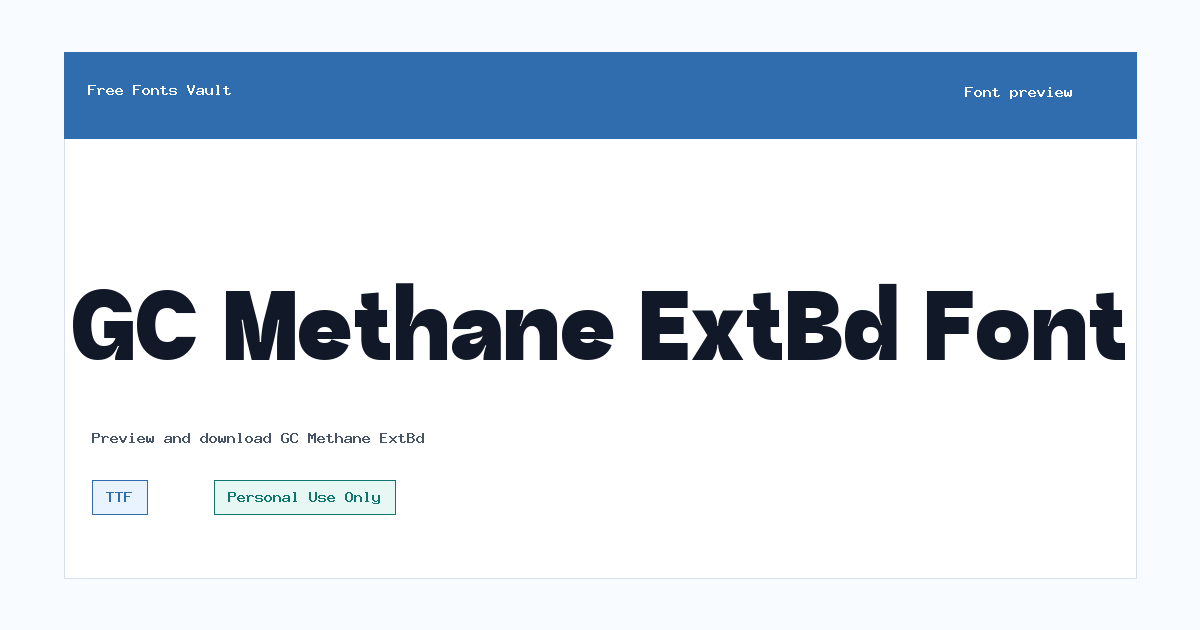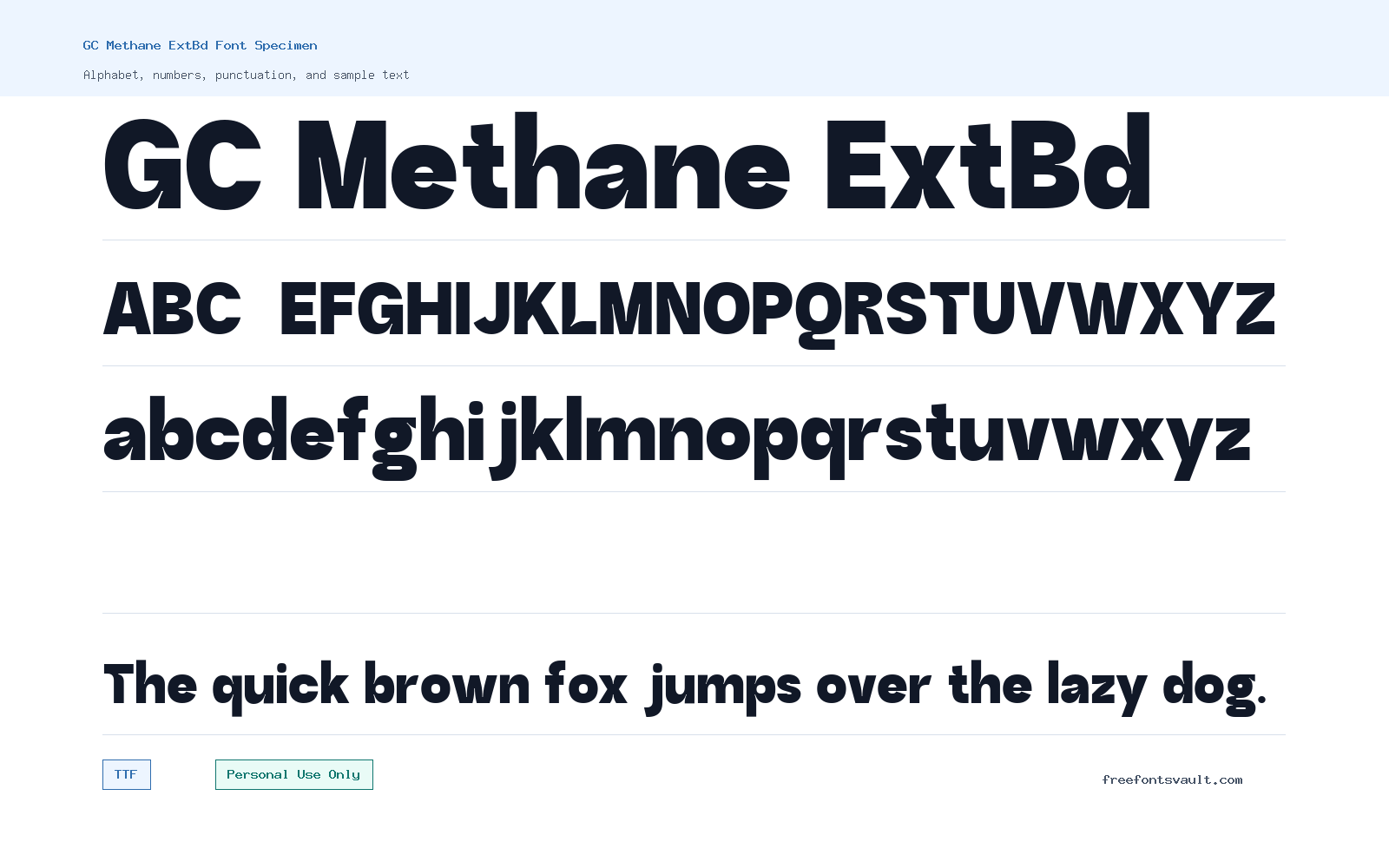
GC Methane ExtBd
- Designer Ken Priska Dewirani of Glyphonic
GC Methane ExtBd is a strong ExtraBold sans serif font from Glyphonic, designed for personal-use display work where a firm, modern headline style is needed.
About GC Methane ExtBd Font
GC Methane ExtBd has the weight and presence you would expect from an ExtraBold sans serif. Its heavier build makes it more suitable for short, direct text than for long paragraphs. Use it when the words need to feel solid on the page: poster titles, cover text, social graphics, bold web mockups, packaging concepts, and logo exploration. Because the available file is a TTF demo style, it is easy to install and test in most design apps before deciding whether the wider family or a commercial license is needed.
This font is best judged at display sizes. Try it in the preview with brand names, short headlines, event titles, and two- or three-word phrases. Check how the spacing feels in all caps, mixed case, and tight logo-style layouts. ExtraBold sans serif fonts can look confident in large text, but they can become dense if used for long copy or small interface labels. For cleaner layouts, pair GC Methane ExtBd with a lighter, simpler sans serif for body text, captions, or navigation. Let GC Methane ExtBd handle the attention-grabbing words, then use a quieter companion font to keep the rest readable.
- ExtraBold sans serif style with strong display impact
- Useful for short titles, logo drafts, posters, thumbnails, and web mockup headings
- Poster headlines and event graphics
- Logo concepts and wordmark drafts
- Web hero titles and landing-page mockups
- Social media graphics and bold thumbnail text
- Packaging studies, cover layouts, and personal design experiments
GC Methane ExtBd is credited to Ken Priska Dewirani of Glyphonic.
Use GC Methane ExtBd for short display text where weight and clarity matter. Test spacing carefully in all caps, avoid long paragraphs, and pair it with a lighter neutral sans serif for body copy so the layout stays readable.
What kind of font is GC Methane ExtBd?
GC Methane ExtBd is an ExtraBold sans serif font. It is better suited to display typography such as headlines, posters, logo drafts, and mockups than to long reading text.
What fonts pair well with GC Methane ExtBd?
Pair it with a lighter, plain sans serif for body text and supporting details. Since GC Methane ExtBd is heavy, a simpler companion font will help keep the design balanced and readable.
Is GC Methane ExtBd good for paragraphs?
It is not ideal for long paragraphs. ExtraBold display fonts usually work best in short lines, titles, labels, and graphic text where the size is large enough to keep the letters clear.